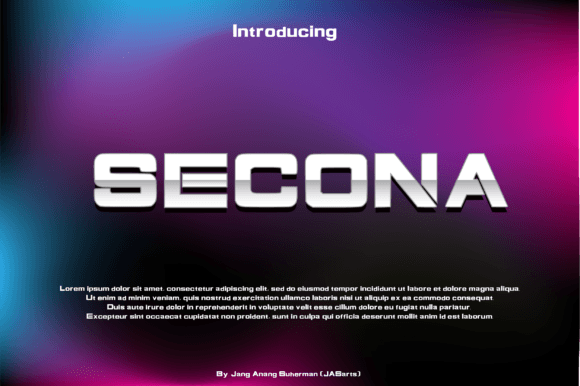
Feast your eyes on Secona, an extraordinary display font crafted by the ingenious JASartos, a name synonymous with typographic excellence. This electro and futuristic creation is the ultimate weapon in your design arsenal, ready to conquer the digital realm and leave your audience in awe. Secona is not just a font; it's a portal to a world of innovation and boundless creativity.
Immerse yourself in the striking visual symphony of Secona, where sharp angles dance with bold lines, creating a mesmerizing display of motion and energy. Its cutting-edge aesthetic is a perfect match for projects that demand a high-tech, avant-garde flair. Elevate your designs to new heights with Secona, the font that embodies the spirit of progress and innovation.
With Secona as your ally, you'll leave an indelible mark on the digital landscape. Its captivating presence is sure to grab attention and leave a lasting impression. Unleash your imagination and embark on a typographic journey like no other. Secona is not just a font; it's a gateway to a world where creativity reigns supreme.
Companies yearning to make a statement, take heed! Secona is your secret weapon to conquer the hearts of Fortune 500 companies. Its sleek and edgy design exudes professionalism and sophistication, making it the perfect choice for logos, branding, and marketing materials. Elevate your brand identity to new heights with Secona, the font that speaks volumes about your commitment to innovation and excellence.